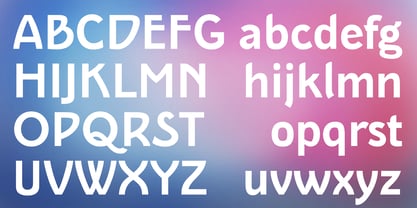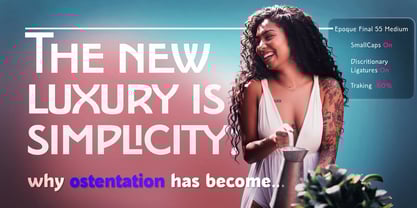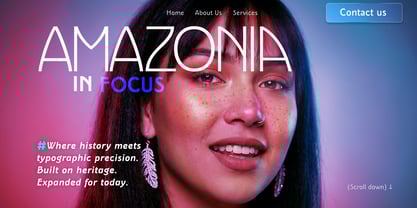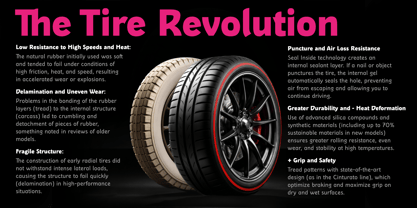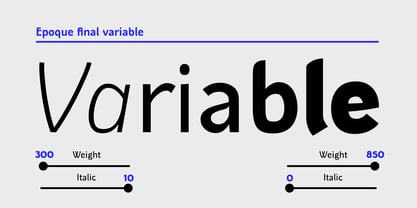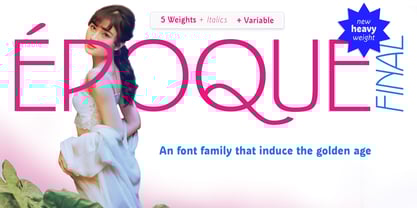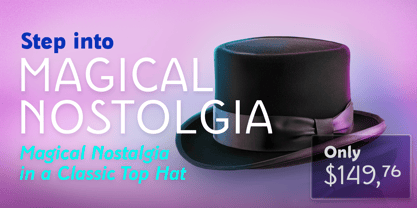
Epoque Final
by Rafaeiro Typeiro
The Epoque Final Font Family was designed by Rafael Ferreira and published by Rafaeiro Typeiro. Epoque Final contains 11 styles and family package options.
Époque Final was originally developed from a fashion catalog exploring materials from the Brazilian Amazon. The letterforms are inspired by 1890–1910 historical typography, a period when rubber fueled the Amazonian economy. In its latest update, Époque features a redesigned lowercase and a significantly expanded character set, including true italics, Small Caps, and enhanced typographic functionality. Previous italic alternates are now accessible via Stylistic Set ss06. The family has also been expanded with a new Heavy weight, designed to deliver greater impact, strength, and visual presence—responding directly to the expressive needs most sought after by users. Époque now offers five weights, with roman and italic styles, and is ideal for logos, titles, posters, and high-impact editorial applications.